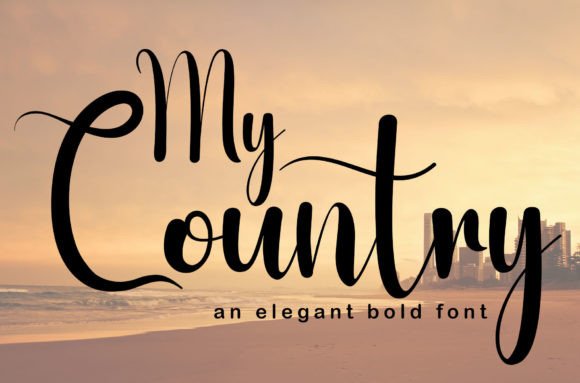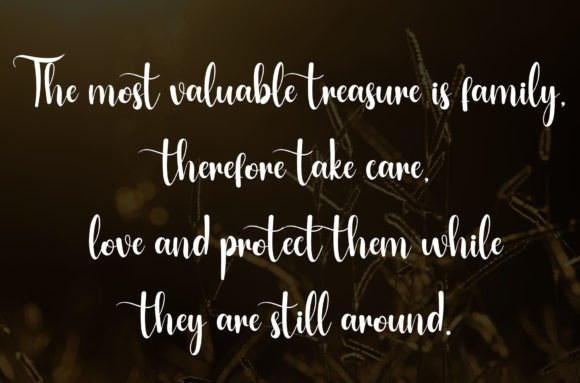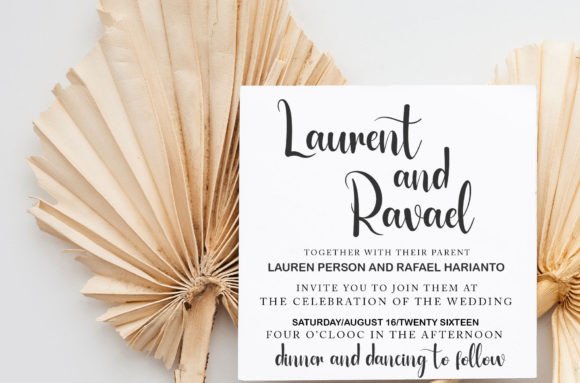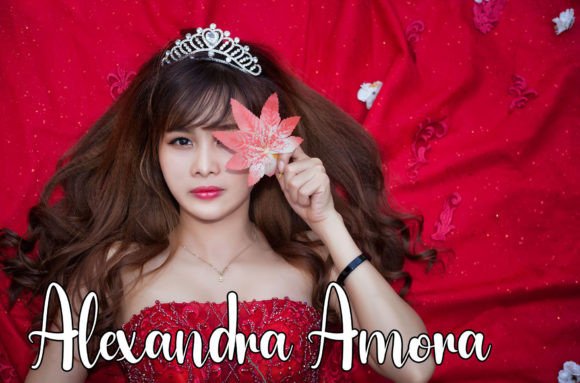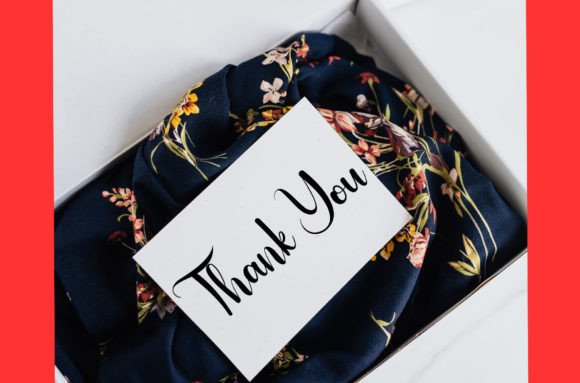
My Country Font
About My Country Font
“My Country” is a meticulously crafted and beautifully handwritten font that exudes an elegant touch, making it a superb choice for your most cherished creative projects. Prepare to be enchanted by its exceptionally distinct and timeless style, and leverage its beauty to craft stunning and unforgettable designs.
This font’s charm lies in its neat and elegant appearance, which lends a touch of sophistication to your text. Whether you’re working on branding, invitations, stationery, social media graphics, product packaging, or any other project, “My Country” offers versatile and stylish typography.
What sets “My Country” apart is its ability to convey a sense of timeless beauty and elegance. Its carefully crafted characters and elegant strokes give your text a graceful and upscale aesthetic, ensuring that your projects exude an air of classic refinement.
Visualize using “My Country” for your brand identity and how it communicates a sense of elegance and sophistication to your target audience. Picture incorporating this font into your wedding invitations, setting the tone for a truly memorable celebration. When you select “My Country” for your product packaging, it conveys a sense of quality and attention to detail.
In conclusion, “My Country” is more than just a font; it’s a design asset that brings a sense of sophistication and timeless beauty to your creative projects. Its neat and elegant style makes it a versatile choice for a wide range of applications, allowing you to create designs that are both distinct and captivating. Fall in love with “My Country” and let it become your go-to font for crafting spectacular and unforgettable designs.